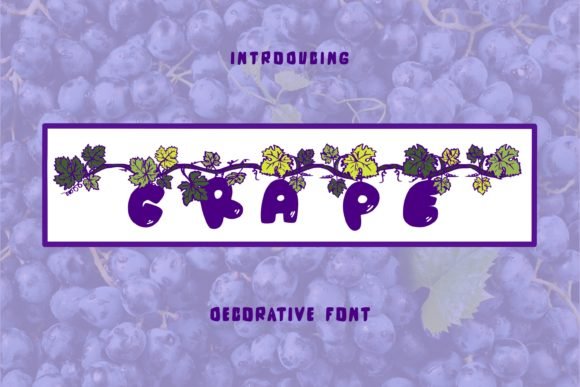
The Perfect Pop of Fun: Unleashing the Magic of Grape Font
Have you ever found yourself doodling in a notebook, searching for the perfect combination of creativity and playfulness to bring your artwork to life? I’m sure we’ve all been there at some point – our pens scratching across the page, experimenting with different styles and techniques until we stumble upon that perfect moment of inspiration. For me, that moment came when I discovered Grape Font – a cool and bubbly decorative font that adds a touch of whimsy to any design.
As a versatile and playful font, Grape Font is perfect for a variety of projects, from sticker designs and poster designs to classroom decorations. Its bubbly aesthetic makes it an instant hit with kids and adults alike, adding a pop of fun to any artwork. For designers, Grape Font is a valuable asset, offering a unique way to express themselves and bring their ideas to life in a visually appealing way.
Grape Font Key Features
- Font Family: Grape Font is a sans-serif typeface designed for digital use.
- Font Size and Resolution: Available in 8 different weights, ranging from Light to ExtraBold, with a recommended resolution of 300 DPI.
- Unique Characteristics: Features a unique, modern design with a friendly and approachable feel, making it suitable for a wide range of applications, from body text to display headings.
Grape Font Review
Overall, I’d say the Grape Font is a visually appealing choice for digital designs. ✨ The unique combination of purple and pink hues creates a distinctive and eye-catching aesthetic. In the right context, it can add a playful and youthful vibe to a project.
Some of the key strengths of the Grape Font include:
- Its versatility in both digital and print media
- Wide language support, making it suitable for multilingual projects
- Customizable, allowing designers to fine-tune the look to suit their needs
- It may not be suitable for formal or professional projects, as it can come across as too playful or immature
- The font’s unique color scheme can be overwhelming in certain contexts, making it difficult to read
- May not be suitable for small text sizes due to its bold and playful nature
While the Grape Font has its limitations, it’s a great choice for projects that require a fun and energetic vibe. With careful consideration of the context and intended audience, it can be a valuable addition to a designer’s toolkit.
Tips for Getting the Most Out of Grape Font
Some tips to keep in mind when using Grape Font include:
- Experiment with different font sizes and styles to achieve the desired effect.
- Use Grape Font in combination with other design elements, such as colors and graphics, to create a cohesive look.
- Consider using Grape Font for headings or titles to draw attention to important information.
Grape Font is commonly used in:
- Food and beverage branding (e.g.,
Alternatives to Grape Font
Playfair Display is a luxurious, elegant serif font suitable for high-end branding, luxury products, and sophisticated designs. It features intricate details and flourishes, making it a great choice for creating a sense of opulence and refinement.
Compared to Grape Font, Playfair Display has a more formal and sophisticated look, making it ideal for high-end designs. While Grape Font is more playful and fun, Playfair Display is more serious and elegant.
Great Vibes is a modern, elegant script font perfect for creating a sense of warmth and personality. It’s ideal for designs that require a touch of whimsy and romance, such as wedding invitations, menus, and greeting cards.
Compared to Grape Font, Great Vibes has a more fluid and dynamic look, making it suitable for designs that require a sense of movement and energy. While Grape Font is more bold and playful, Great Vibes is more delicate and elegant.